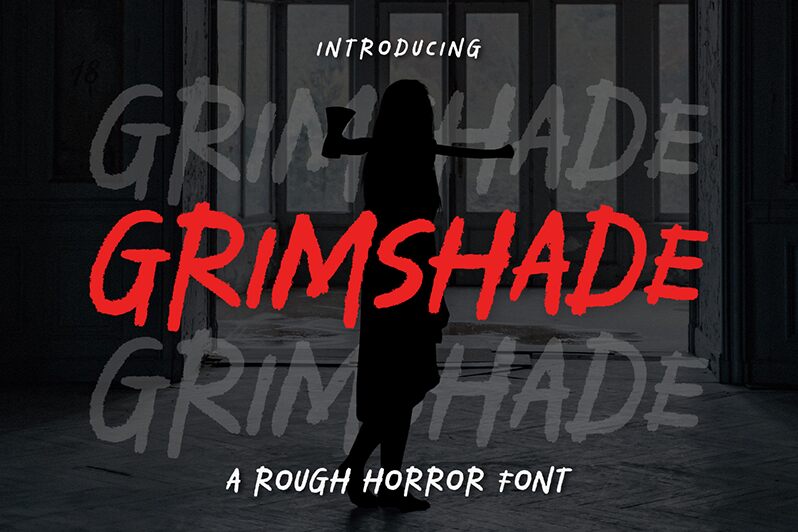
Grimshade font family by Alpaprana Studio has a menacing aggressive look suitable to scary, frighten and terrify your audience. This horror typeface is written with hand-style letters expressing a chaotic style with lots of spooky details. This free font family, available for free for personal use, comes in 2 font styles. A disturbing appearance is achieved with gritty outlines for each of the letterforms.
Use this font to design horror posters, covers, graphic novel titles, comics, movie posters and titles, video games, or anything that requires a dark, intense look. Go ahead and create spooky invitations, social media posts, and event tickets with this unusual typeface.